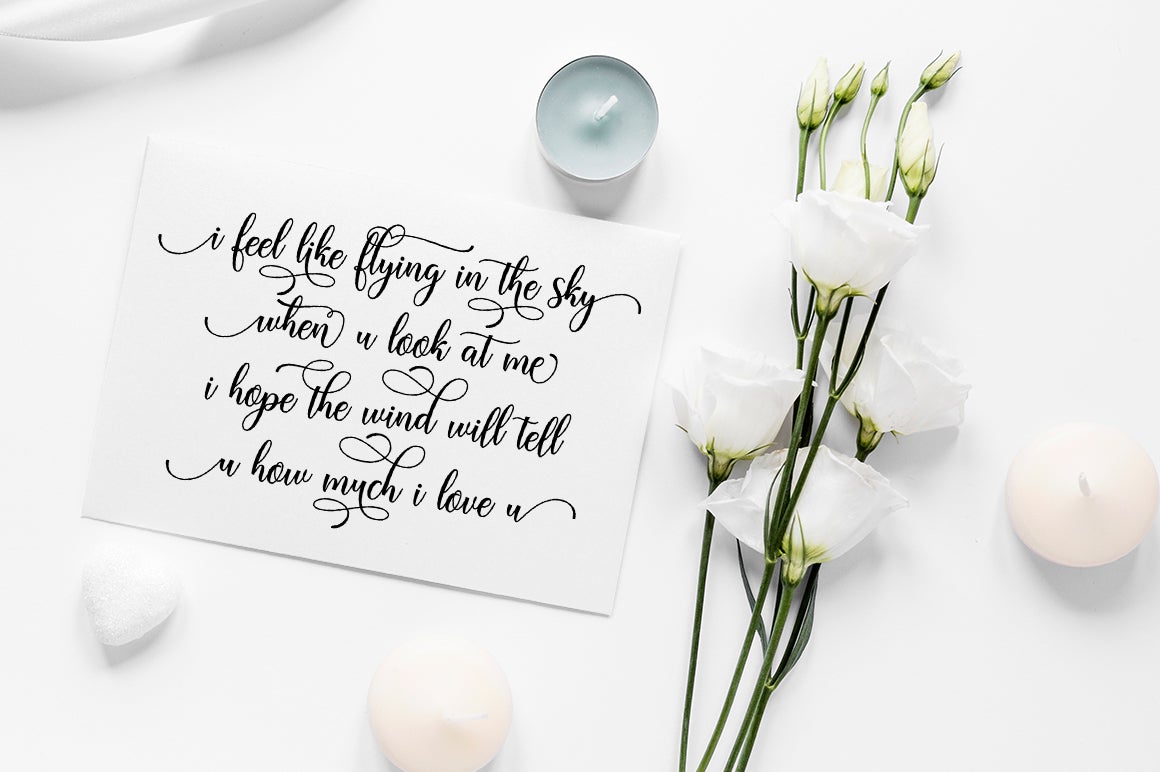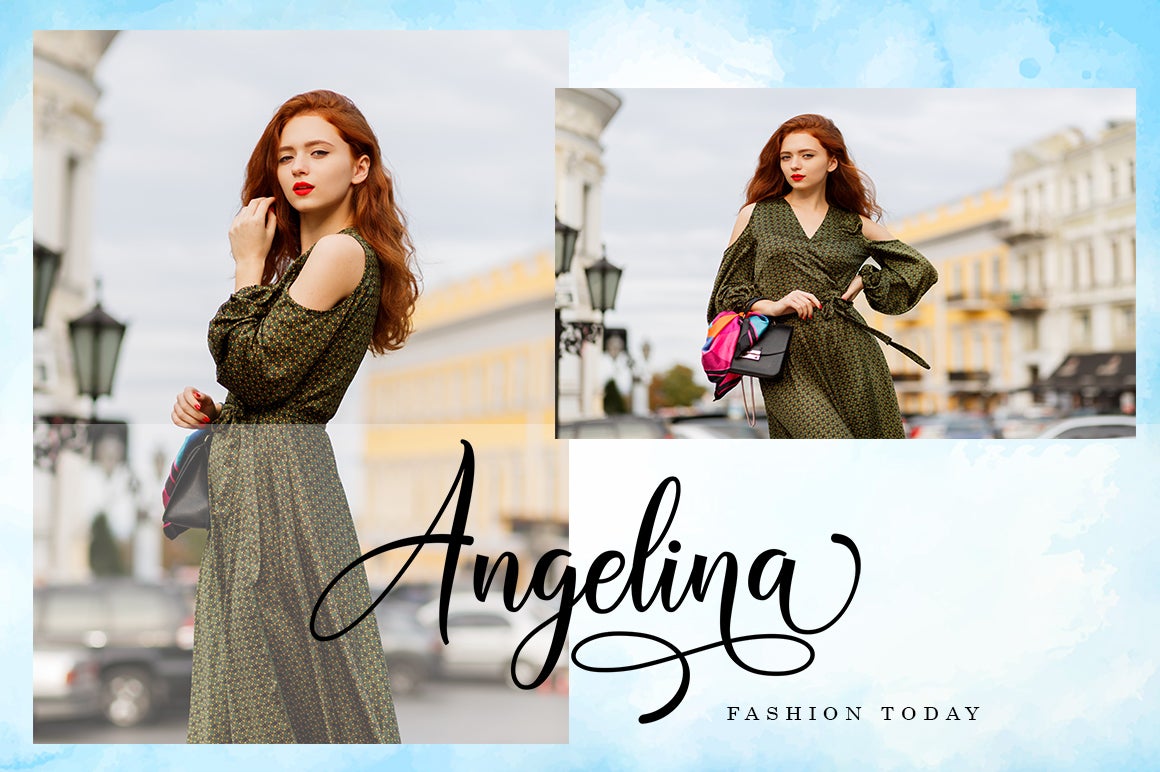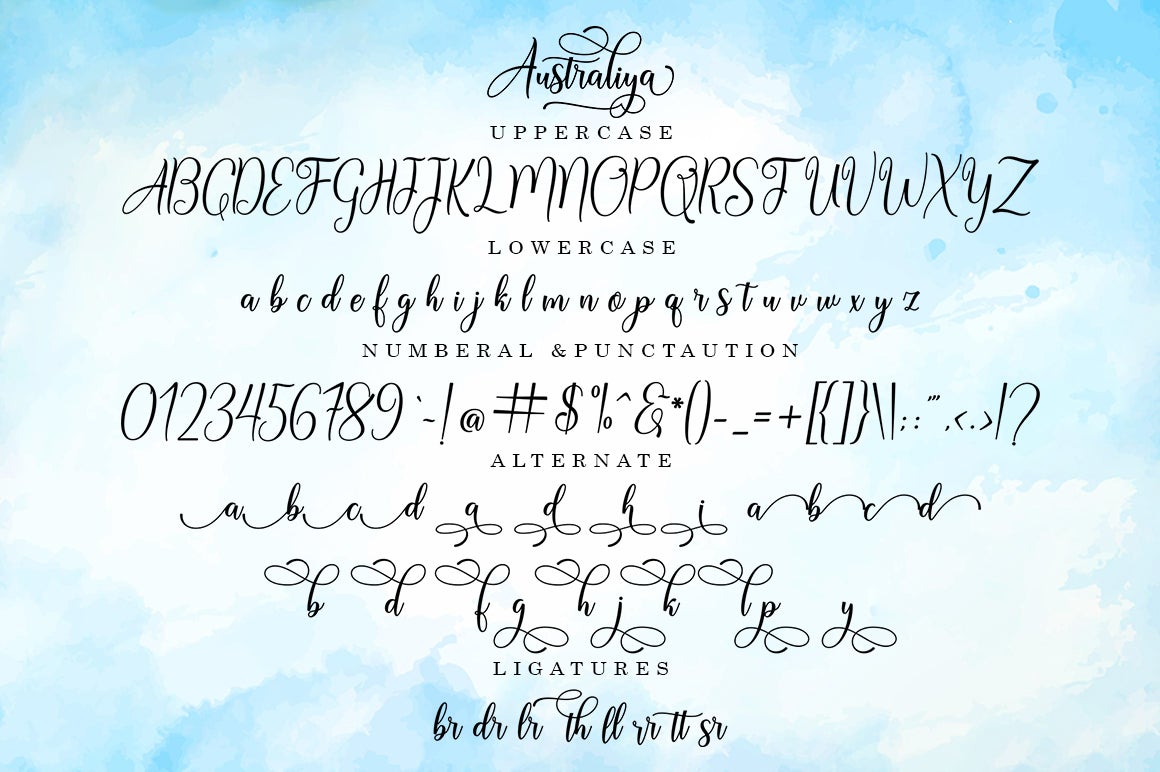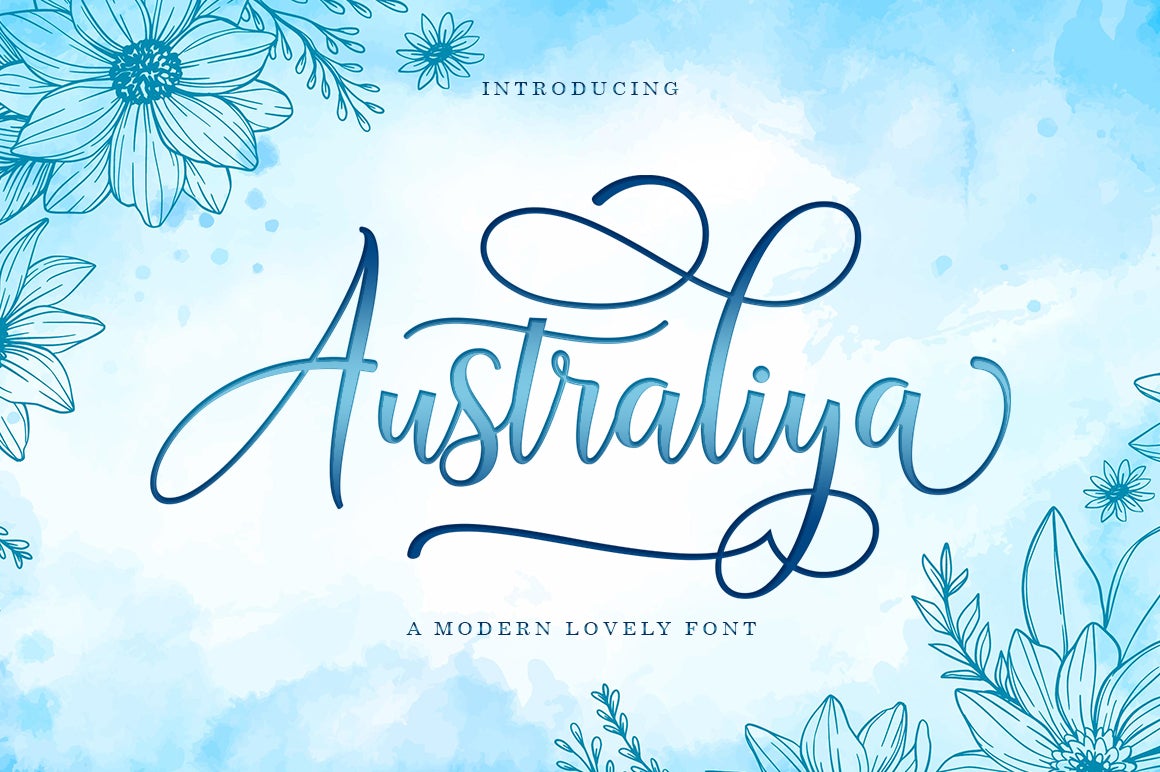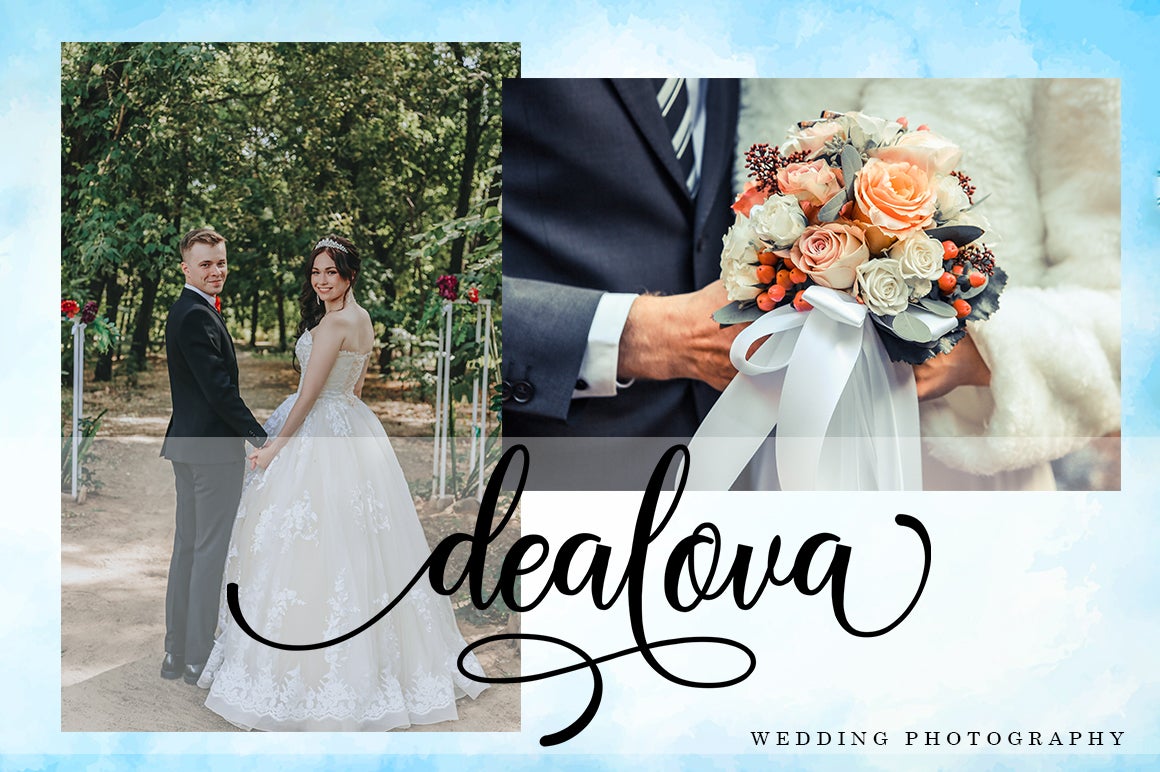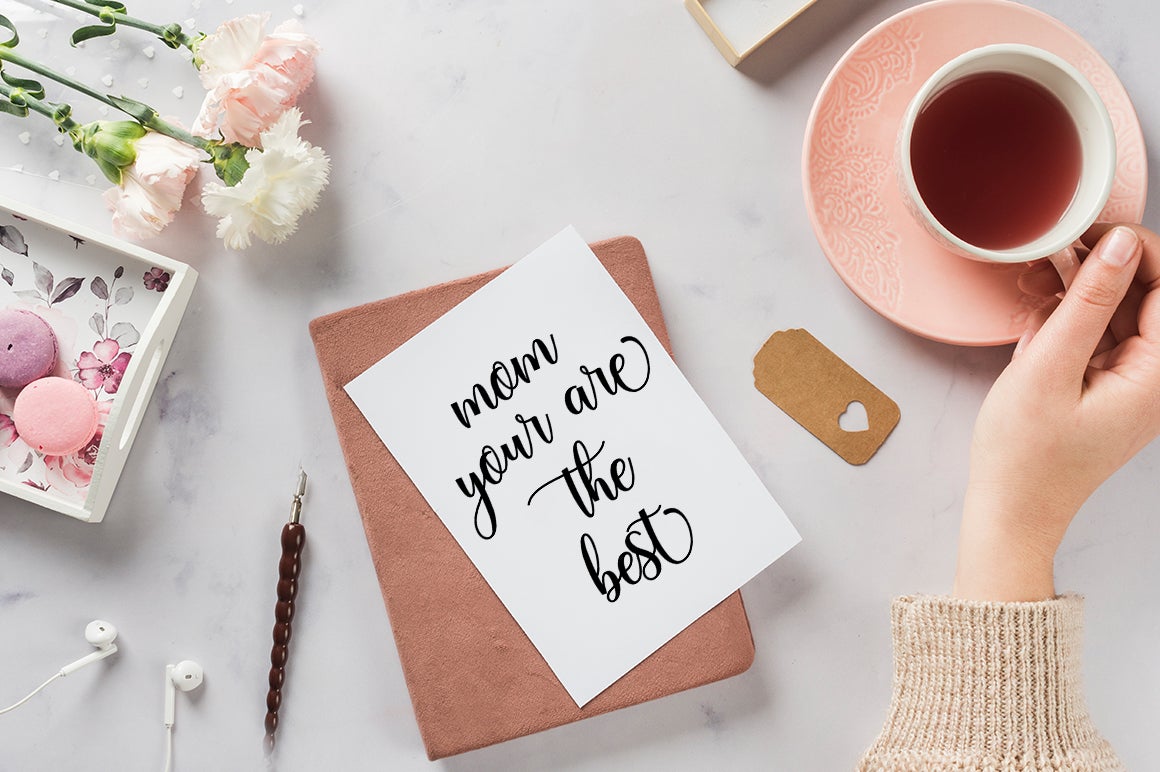
Australiya
About Australiya
Australiya Script is a new modern script font with an irregular baseline. Feminine style and style.Australiya Script looks beautiful on wedding invitations, thank you cards, quotes, greeting cards, logos, business cards and more. Perfect for use in ink or watercolor. Includes start and end letters, alternatives and support for many languages. Files include: Australiya Script.OTF Australiya Script.TTF To activate the OpenType Stylistic alternative, you need a program that supports OpenType features such as Adobe Illustrator CS, Adobe Indesign & CorelDraw X6-X7, Microsoft Word 2010 or a later version. There is an additional way to access alternatives / swashes, using the Character Map (Windows), Nexus Fonts (Windows), Font Book (Mac) or a software program such as PopChar (for Windows and Mac). How to access all alternate characters: https: //www.youtube.com/watch? v = Go9vacoYmBwhttps: //www.youtube.com/watch? v = XzwjMkbB-wQhttps: //www.yo … need help or have questions, let me know. I’m happy to help  Thanks & Congratulations on Design!